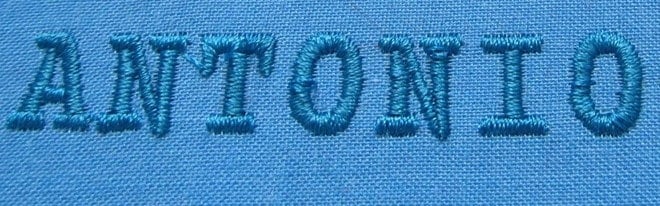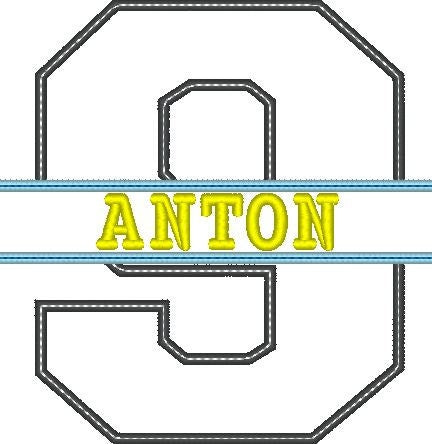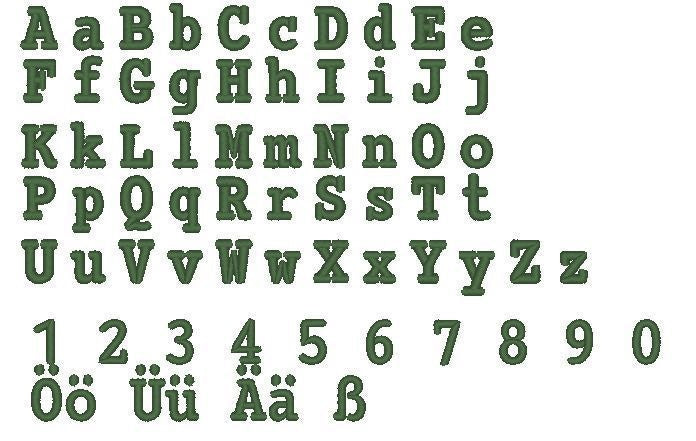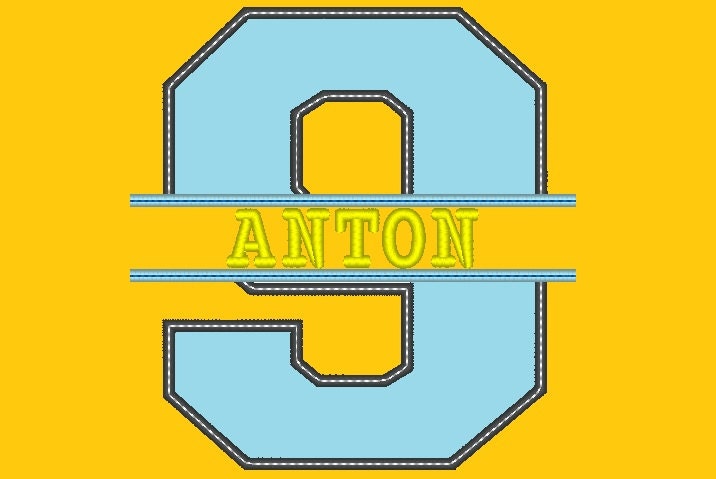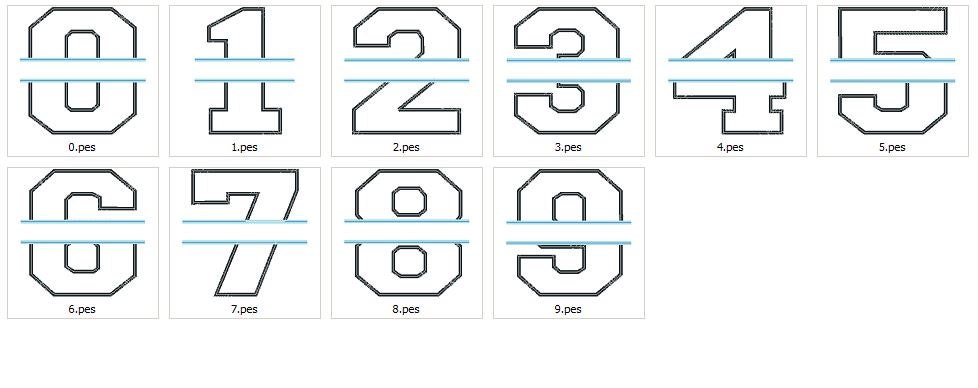
Or click to open the linkDiscount -40% ALL NUMBERS Collegiate Split machine embroidery appliqué designs Monogramming Set 4, 5, 6" height and add-on mini font All numbers 0-9
Numbers are with a wide satin stitch, which is good for T-shirt applique.
Also decorated with a triple bean stitch on top of the satin, which gives better usage in practical life, washing, and wearing.
Included mini font in 3 sizes, and it fits into the split of the applique letters.